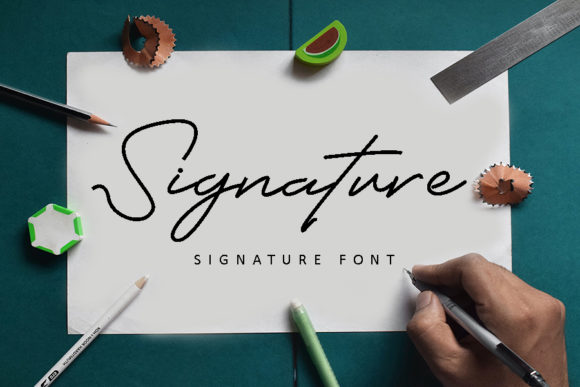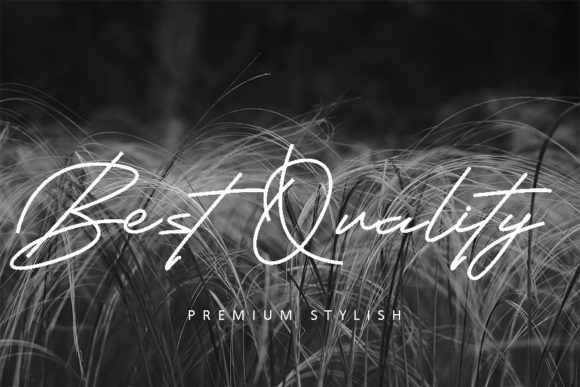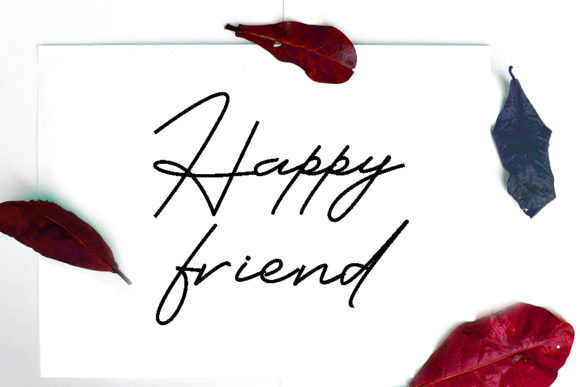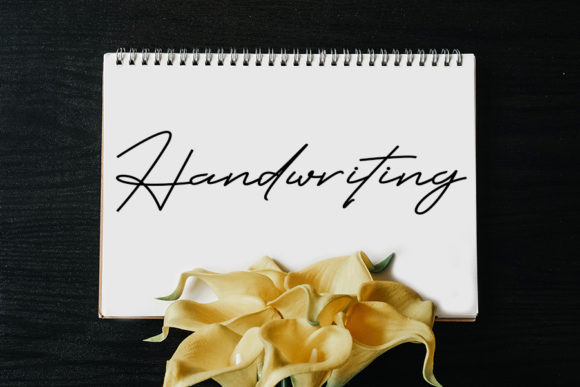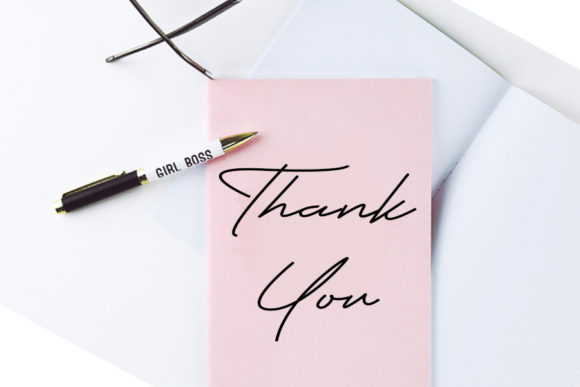
Signature is a cute handwritten font. It features an incredibly classic style, while still keeping a friendly feel. Signature is the perfect font for making original and outstanding designs.